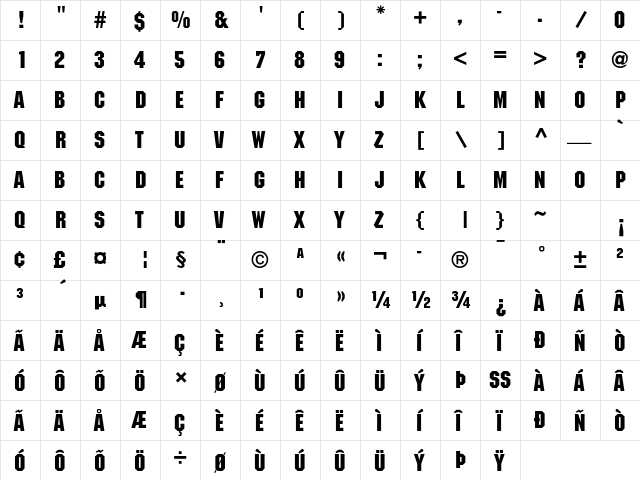
ITC Machine Std Medium
| Designer | Bonder & Carnase, Inc. |
Design Context for ITC Machine Std Typeface
ITC Machine Std takes a measured approach to typography — its balanced proportions and neutral character make it a reliable workhorse for both digital and print work.